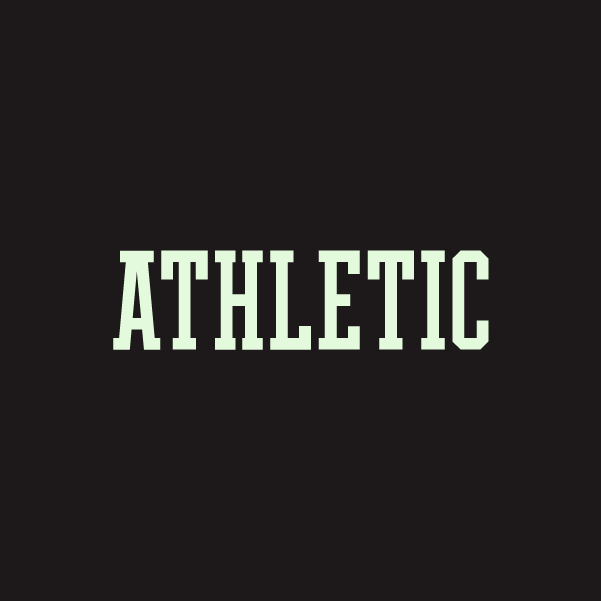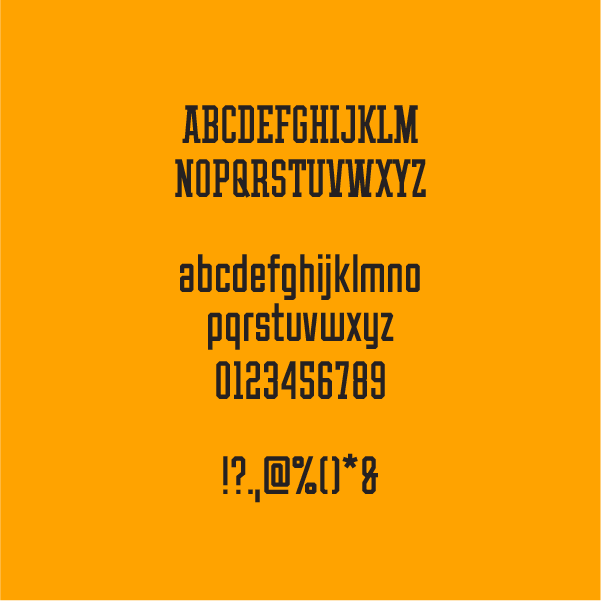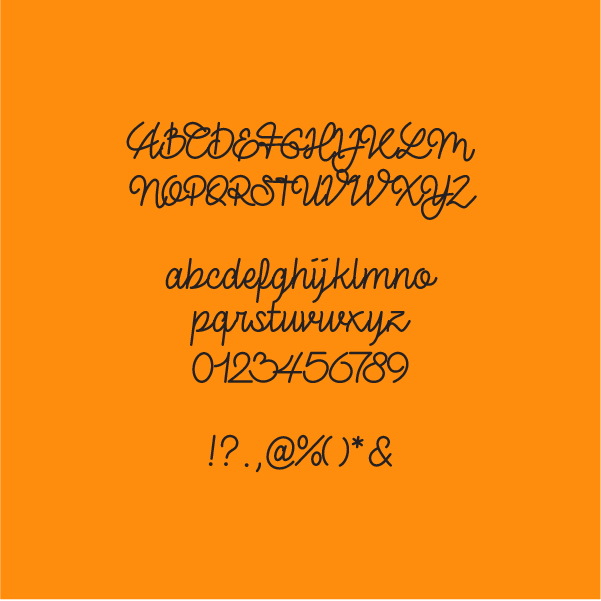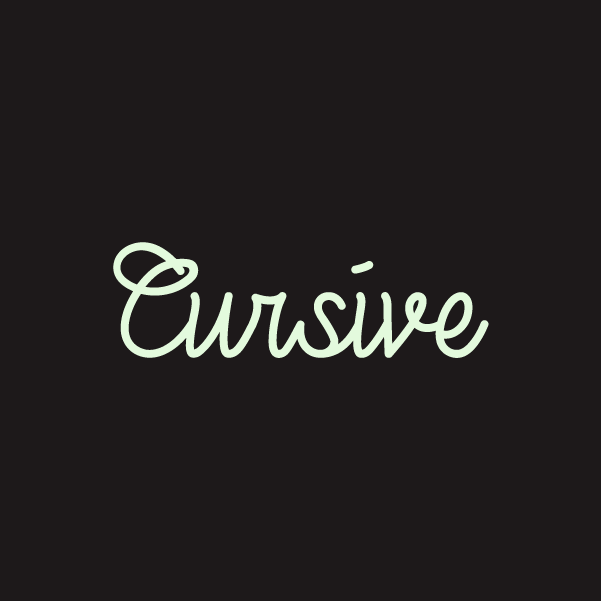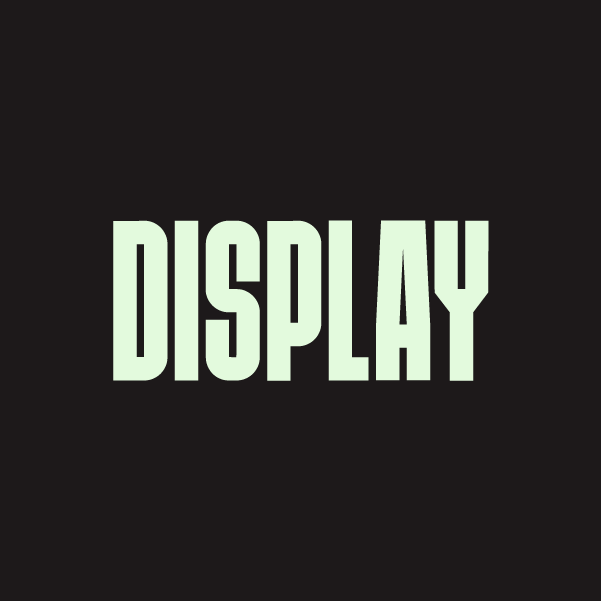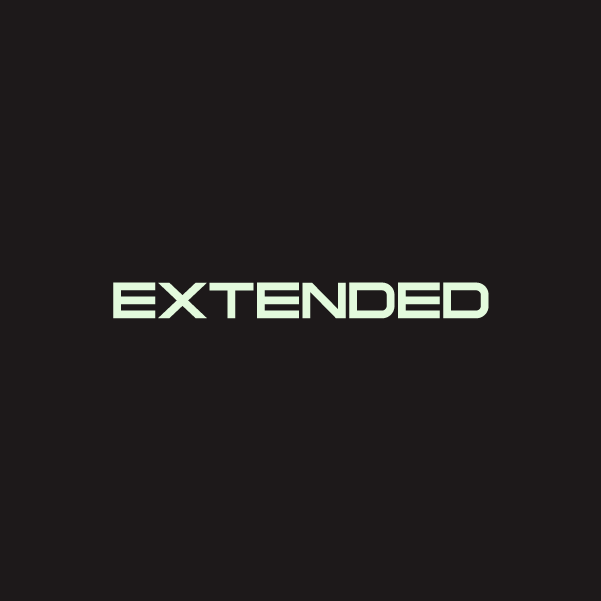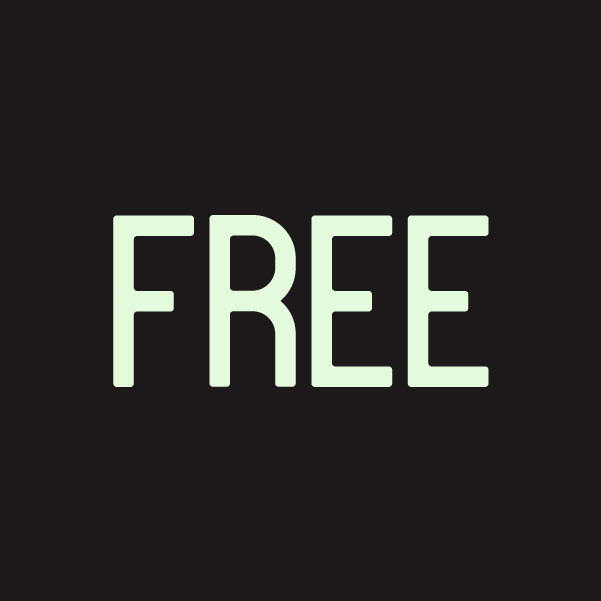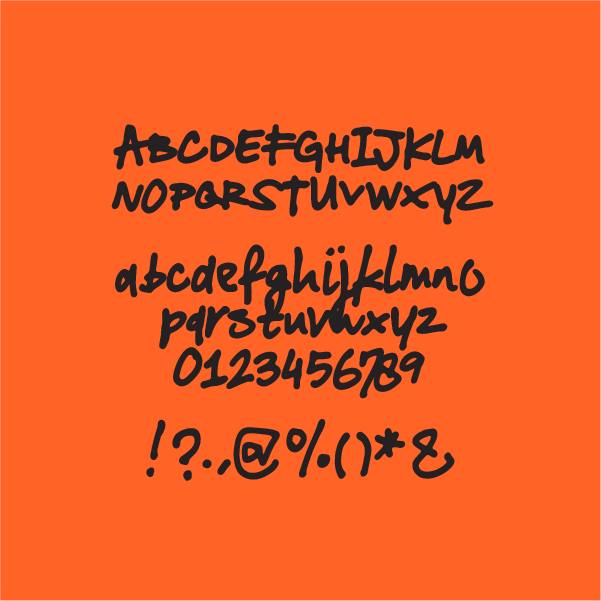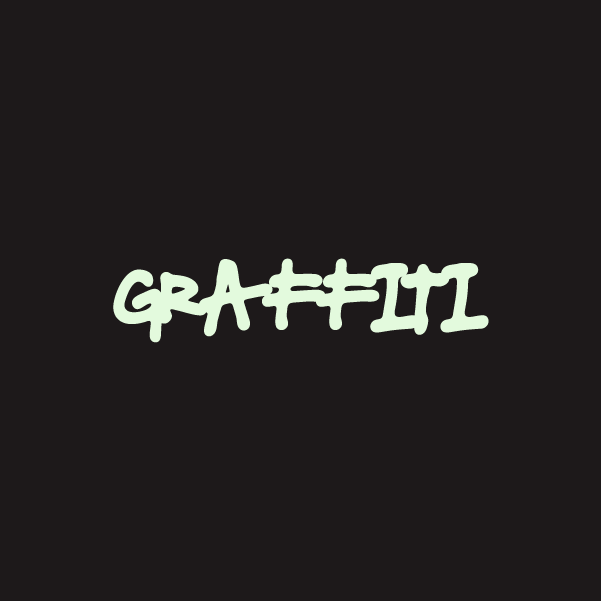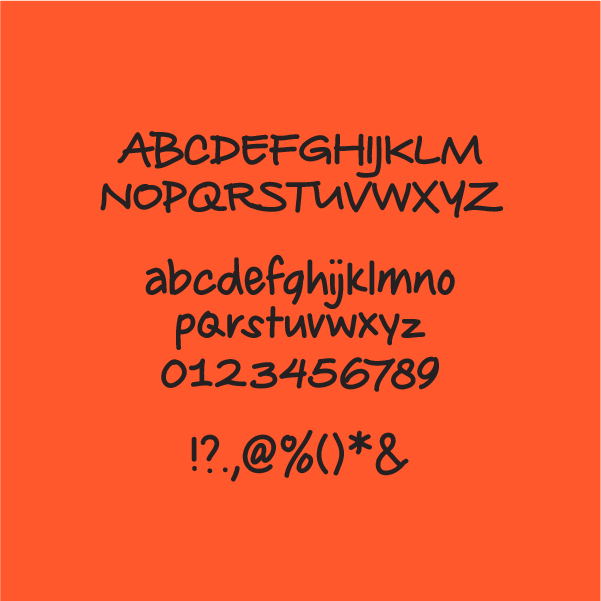
GRAB FULL ATTENTION
BE IMPOSSIBLE TO IGNORE
LEAVE AN IMPACT
A BOLD Font for impactful LOGO’s, Headlines AND Posters
What began as a single experiment in font design became one of the most downloaded fonts on DaFont. Now THE BOLD FONT is featured in movies, posters, and bold graphic designs making impact across the globe.
It’s even stroke width is breaking design rules and creates a bold, unmistakable presence. Designed for high-impact designs that leaves an Impression. Ideal for logos, headlines, posters and any layout that needs to grab full attention.
NAME: THE BOLD FONT
DESIGNER: SVEN PELS
CATEGORY: SANS-SERIF, DISPLAY
THE BOLD FONT
A Bold Font Collection of 26 Downloadable Fonts
We didn’t stop there. Today, THE BOLD FONT is a font family with a collection of 26 digital fonts — one for every letter of the alphabet.Our modern fonts aren’t here to please. They’re here to provoke. To break grids. To add grit where others add polish.